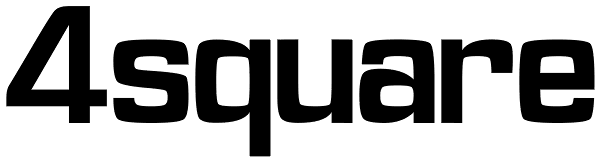
4square
Strength, solidity and styleÂ’ neatly encapsulate 4square, a font that combines a sturdy industrial feel with smooth, streamlined contours. ItÂ’s definitely got some Microgramma in its DNA, although the proportions are squarer and the letter forms...